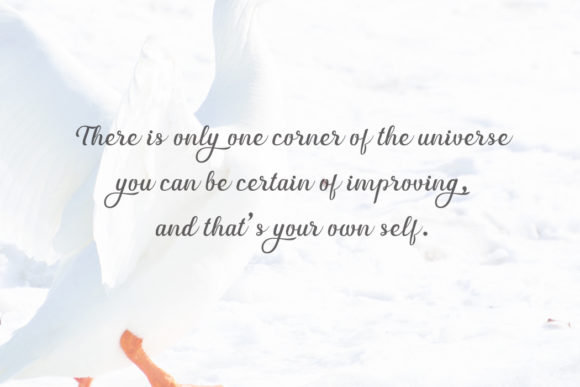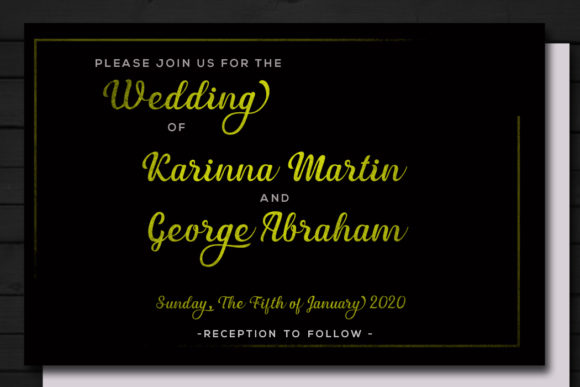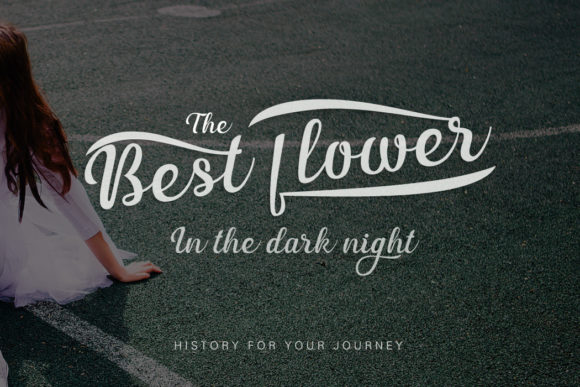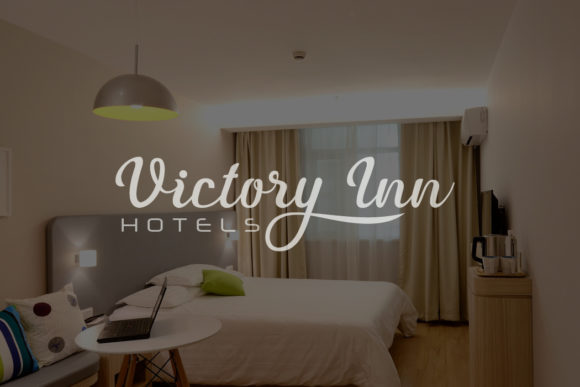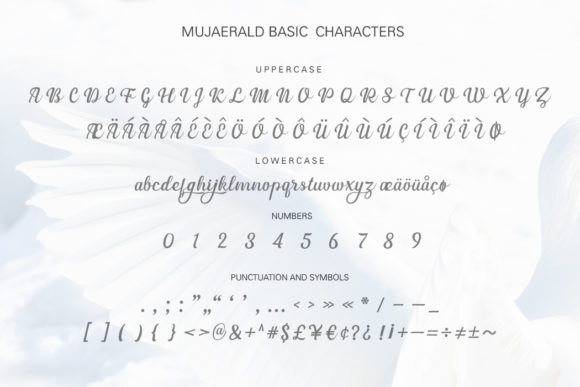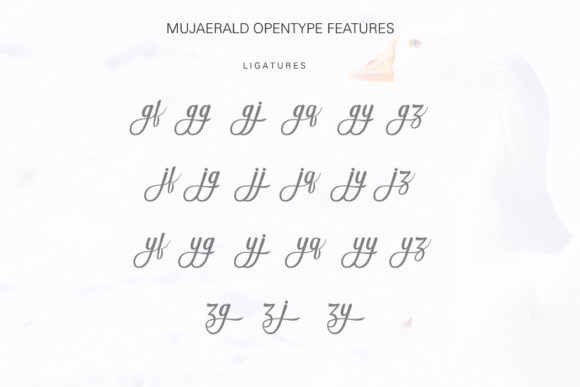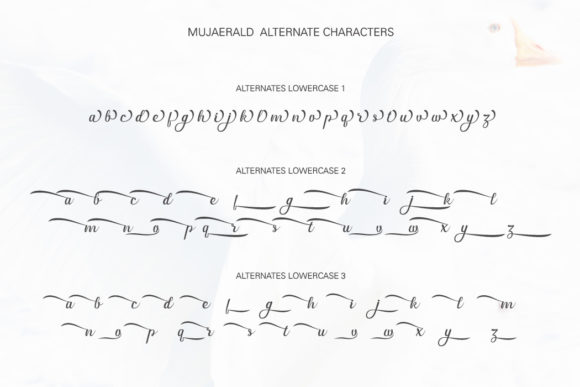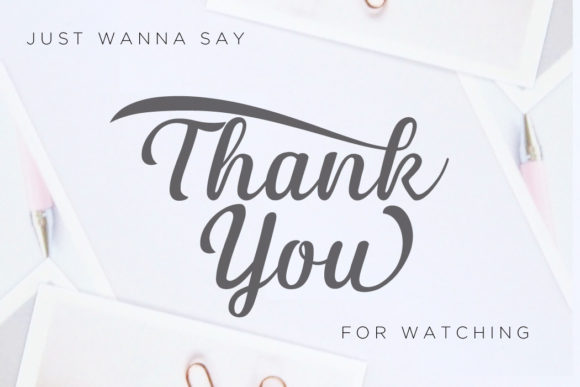
Mujaerald Font
About Mujaerald Font
The Mujaerald is a nice script font with a clear, simple and elegant look. The available alternates and ligatures offer a number of different characters that give your typographic an unique look.
It’s perfect to apply in various formal forms like invitations, labels, menus, logos, fashion designs, make up, stationery, letterpress, romantic novels, magazines, books, greeting / wedding cards, packaging, labels and more.